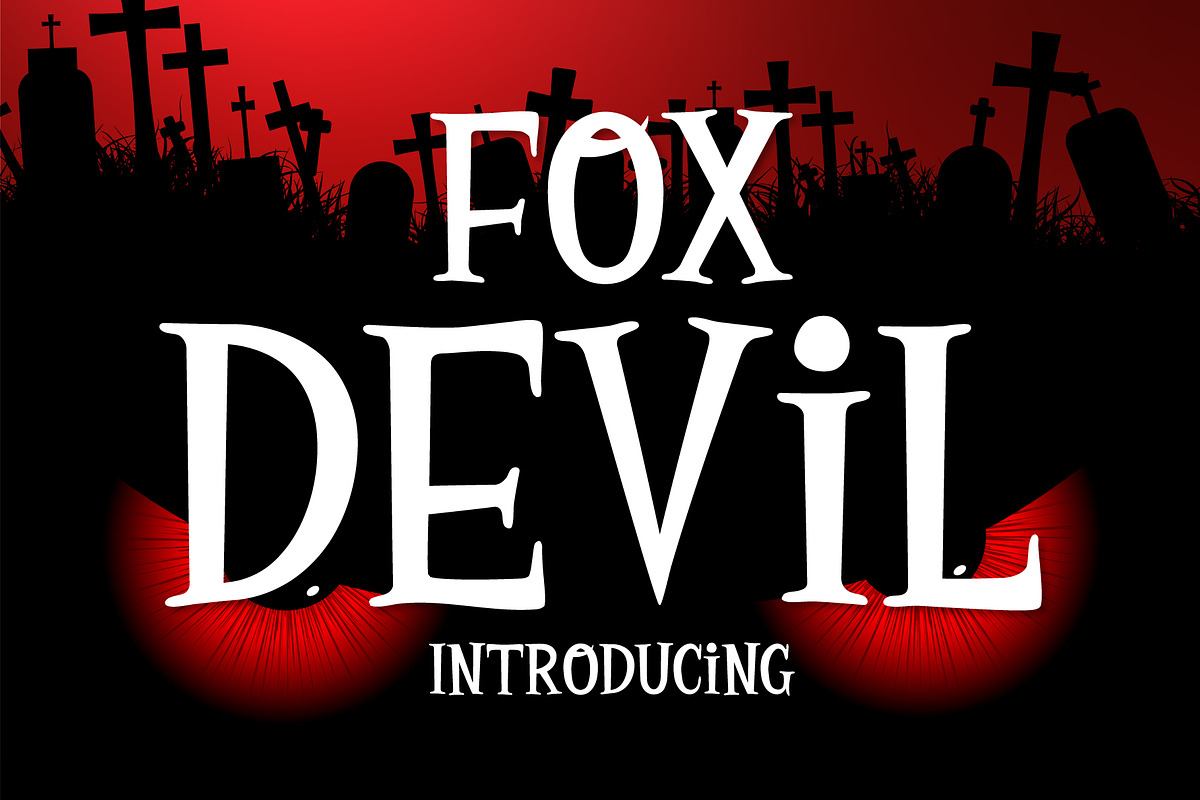
Fox Devil Font Free Download is a fierce and edgy display typeface with a dark, mischievous personality. Featuring sharp strokes, aggressive angles, and wild energy, this font is perfect for horror titles, metal band logos, Halloween graphics, gaming posters, and rebellious streetwear designs.
Its bold and chaotic appearance commands attention, making it ideal for any creative project that thrives on attitude and intensity. Whether you're designing for an underground brand, a spooky event, or a digital artwork with edge, Fox Devil Font Free Download adds a fiery punch to your typography.